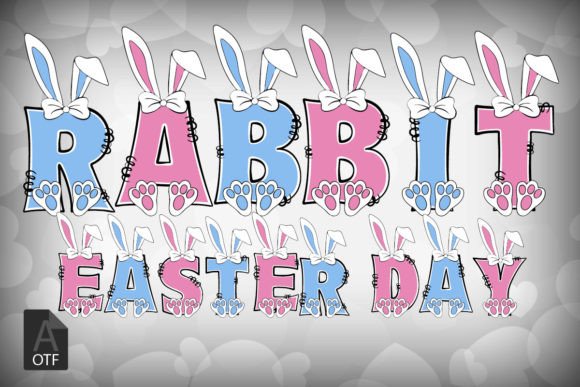
Looking for the perfect font to use for your T-shirt designs? Look no further than Rabbit Easter Day Font from Little Lady Design! This vibrant display font is sure to catch the eye with its bold and bright colors and retro aesthetic.
Rabbit Easter Day Font is the perfect choice for anyone looking to create Easter-themed designs or add a touch of playfulness and whimsy to their projects. With its unique design and eye-catching colors, this font is sure to stand out and make a statement.
Whether you're a professional designer or just someone who loves to create, Rabbit Easter Day Font is a must-have addition to your collection. Its versatility and playful style make it perfect for a wide range of projects, from T-shirt designs to posters, invitations, and more.